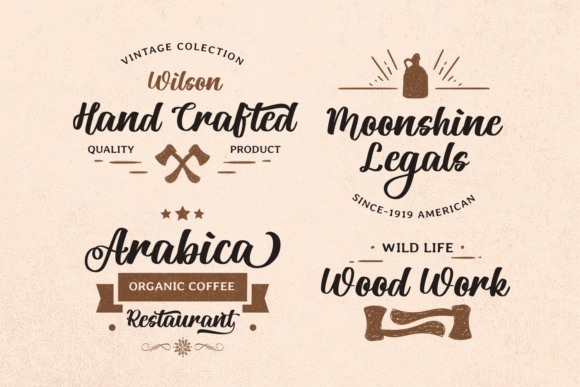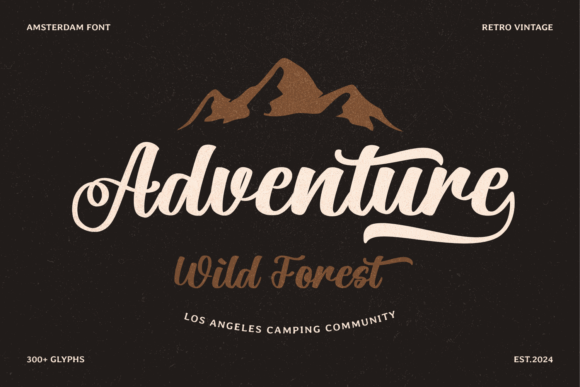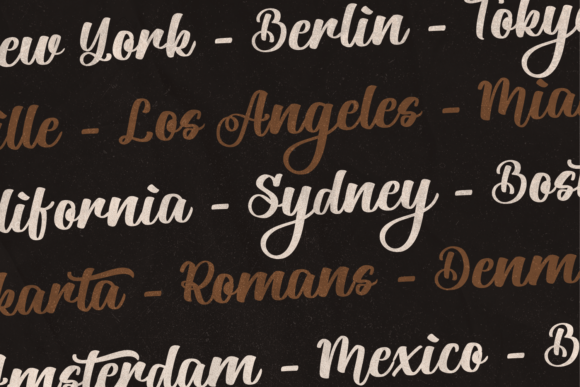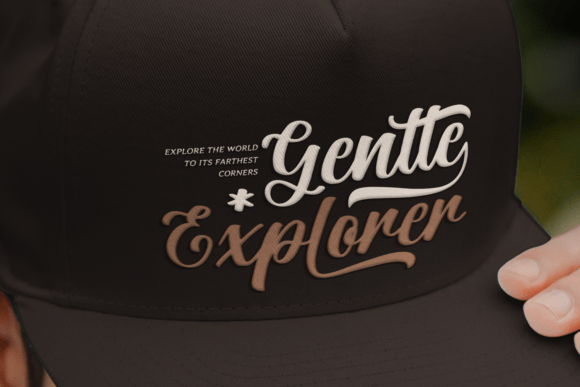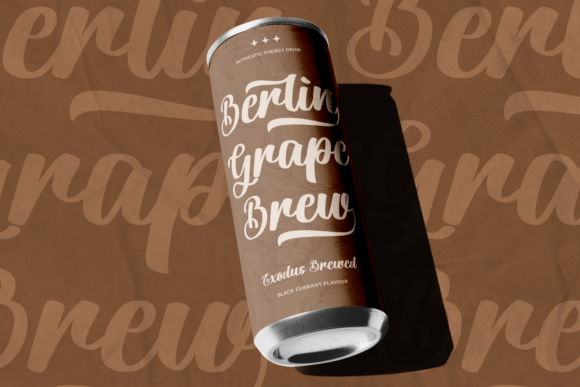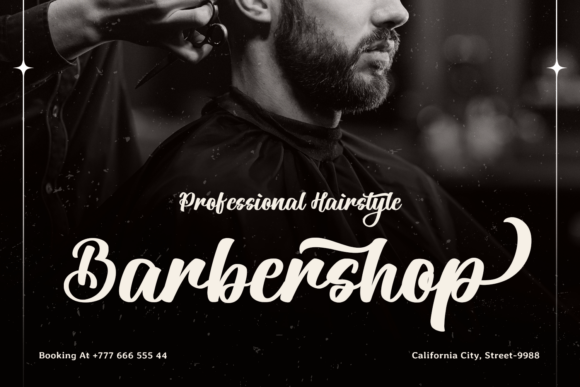
Introducing Amsterdam Font: Elevate Your Designs with Elegance and Warmth
Are you looking for a font that can add a touch of sophistication and charm to your creative projects? Look no further than the Amsterdam Font, a stunning script handwritten typeface designed to bring elegance and warmth to your designs. With its fluid, natural strokes and artistic flair, this font is perfect for a variety of themes, including invitations, signatures, Christmas, New Year, winter, Easter, and Thanksgiving.
A Charming Handcrafted Feel
The Amsterdam Font boasts a charming handcrafted feel that adds a personal touch to your designs, making them memorable and heartfelt. Its unique and artistic style is perfect for designers and crafters who value elegance and functionality. Whether you’re designing holiday cards, crafting personalized gifts, or creating festive decorations, this font delivers unmatched sophistication and charm.
Key Features of Amsterdam Font
- Fluid, Natural Strokes: The Amsterdam Font features fluid, natural strokes that give it a handcrafted feel.
- Artistic Flair: The font’s artistic flair makes it perfect for a variety of creative projects.
- Beginning and Ending Swashes: Every character in the Amsterdam Font is adorned with beginning and ending swashes, creating graceful tails that enhance its visual appeal.
The Amsterdam Font is perfect for a variety of projects, including:
- Holiday Cards: Add a touch of elegance and sophistication to your holiday cards with the Amsterdam Font.
- Personalized Gifts: Create personalized gifts, such as customized mugs, t-shirts, and more, with the Amsterdam Font.
- Festive Decorations: Use the Amsterdam Font to create festive decorations, such as garlands, banners, and more.
- Invitations: The Amsterdam Font is perfect for creating elegant and sophisticated invitations for weddings, parties, and more.
- Signatures: Add a touch of elegance and sophistication to your signatures with the Amsterdam Font.
Why Choose Amsterdam Font?
There are many reasons why you should choose the Amsterdam Font for your creative projects. Here are a few:
- Elegance and Sophistication: The Amsterdam Font adds a touch of elegance and sophistication to your designs.
- Handcrafted Feel: The font’s handcrafted feel makes it perfect for designers and crafters who value uniqueness and personality.
- Versatility: The Amsterdam Font is versatile and easy to use in a variety of projects.
- Timeless Appeal: The font’s timeless appeal makes it perfect for projects that require a classic and sophisticated look.
In conclusion, the Amsterdam Font is a stunning script handwritten typeface that is perfect for designers and crafters who value elegance and functionality. With its fluid, natural strokes and artistic flair, this font is ideal for a variety of themes and projects. Its charming handcrafted feel and beginning and ending swashes make it a must-have for anyone looking to add a touch of sophistication and charm to their designs. So why wait? Elevate your creations today with the Amsterdam Font and watch your designs come to life!